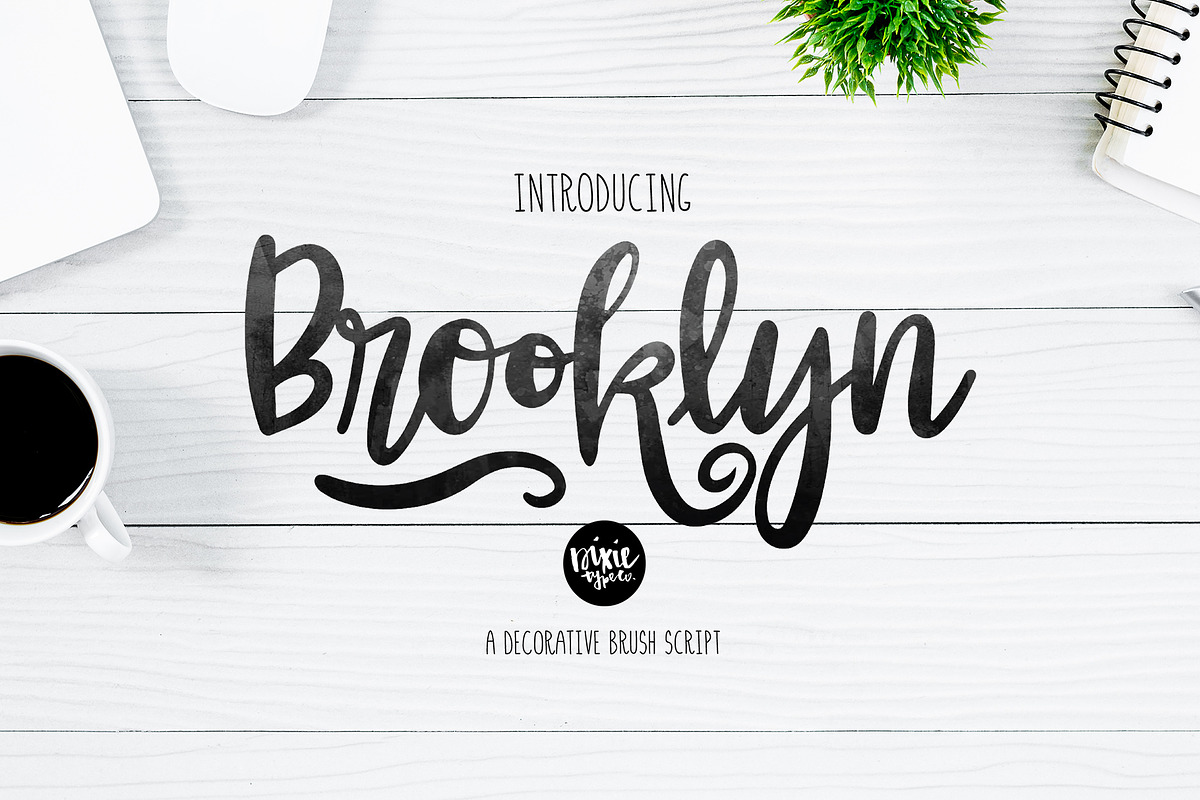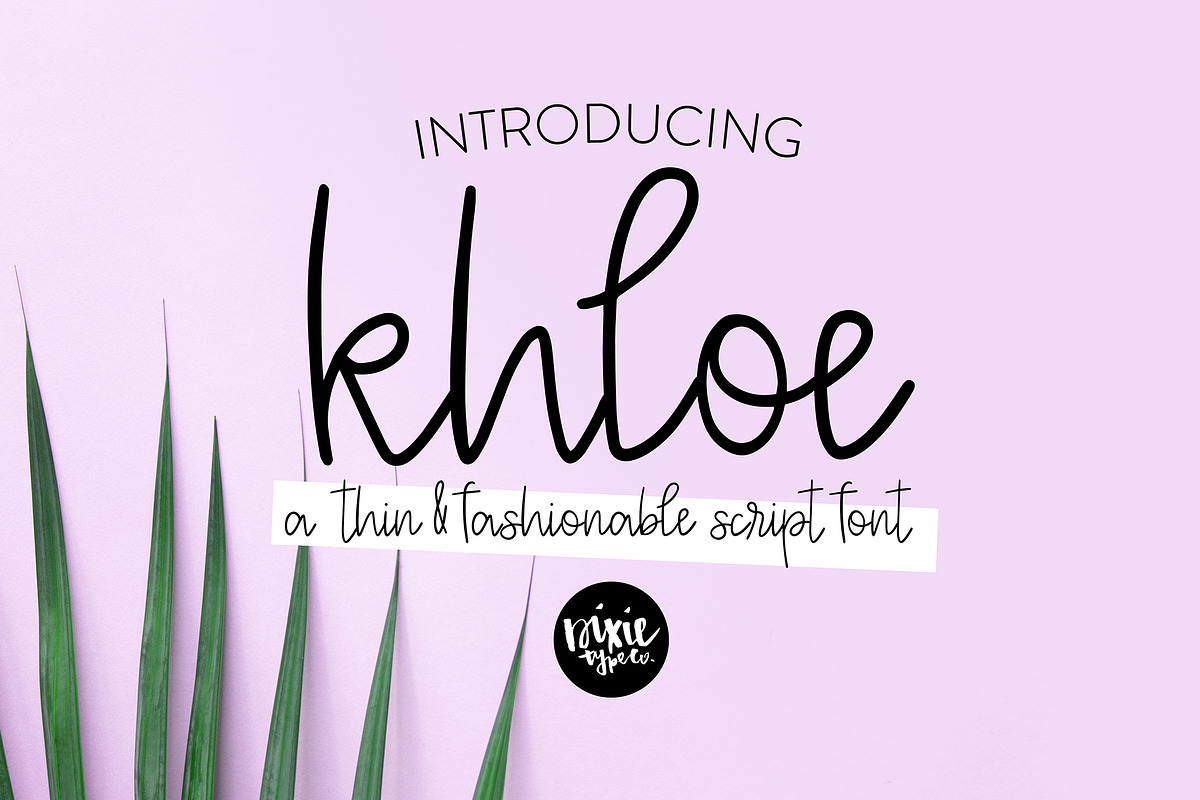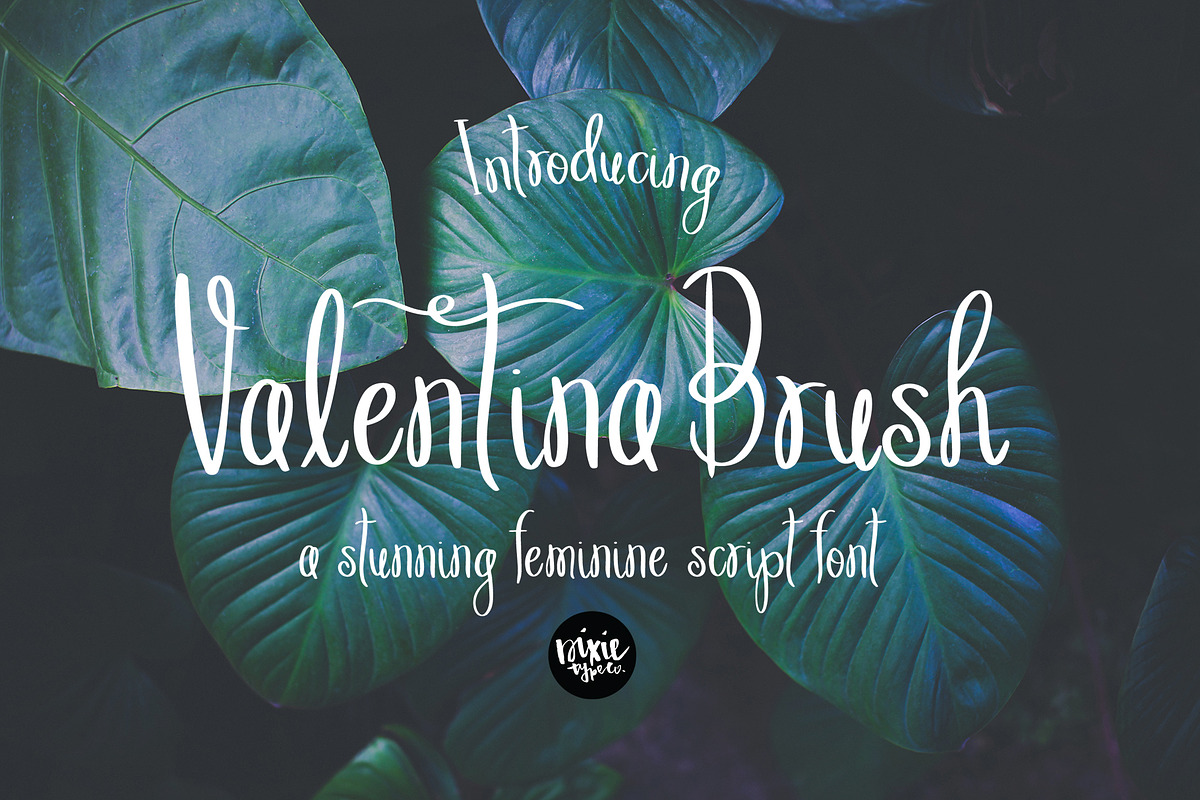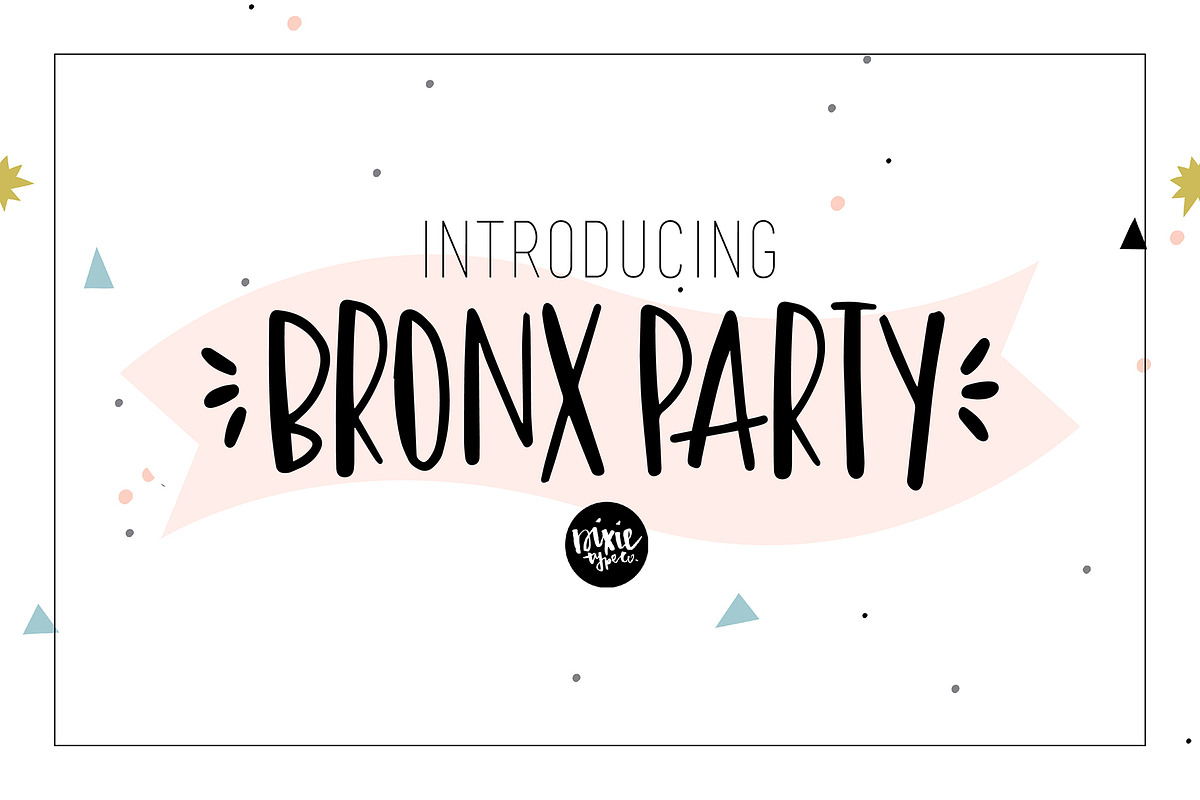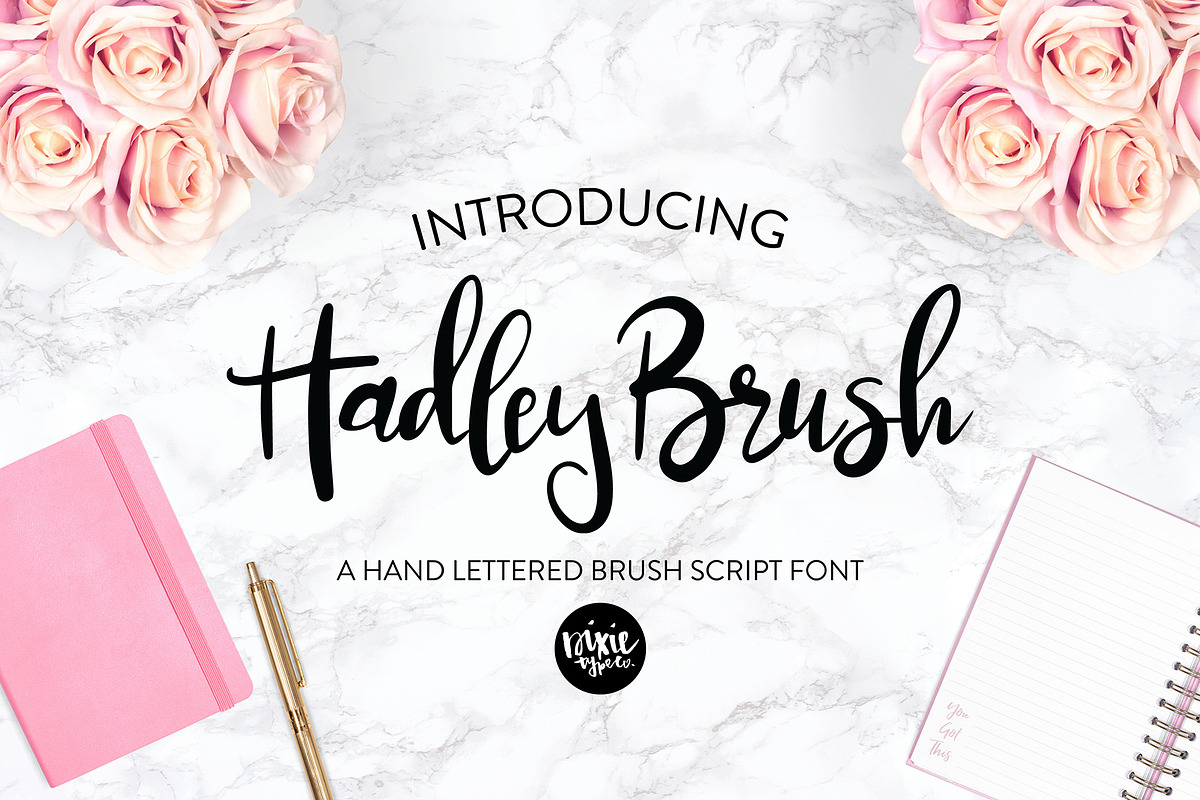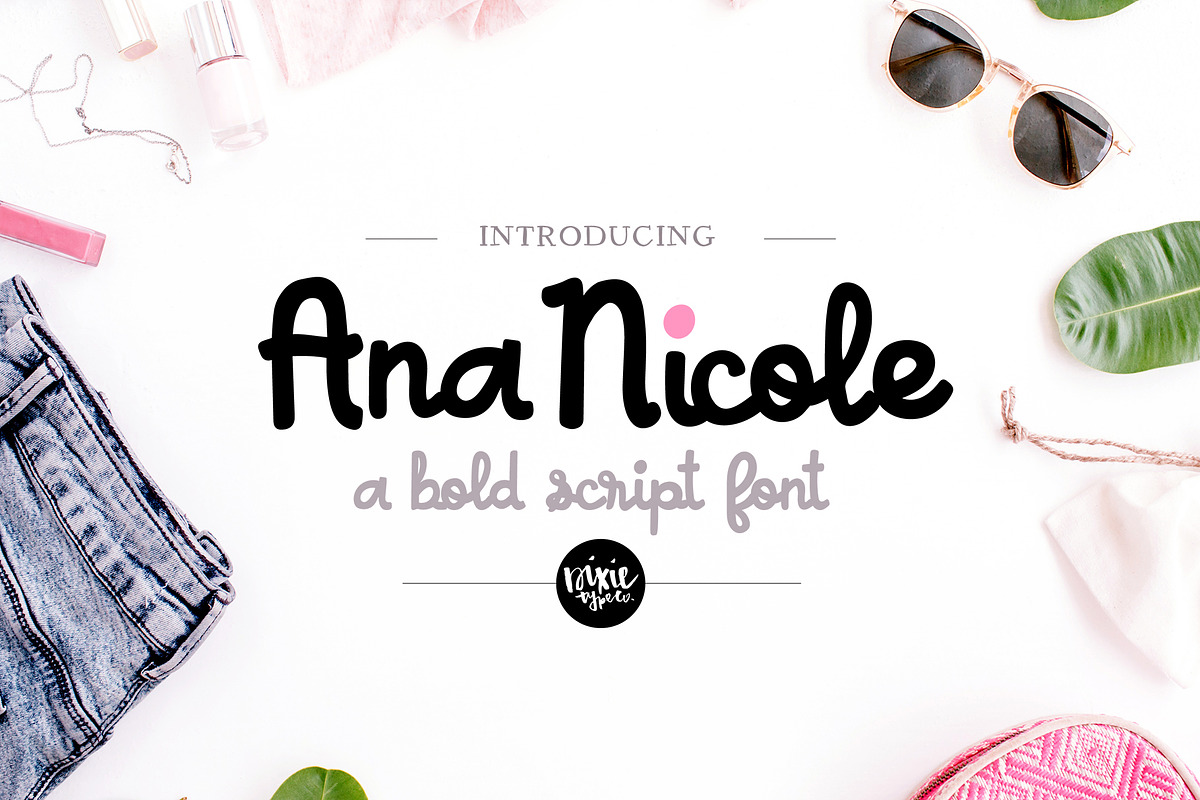
These fonts were all hand lettered with a brush and ink, or iPad Pro.
The 8 fonts included are:
Ana Nicole Viviene Bold Brush (New!) Brooklyn Hadley Brush Bronx Party Valentina Brush Khloe Laguna Beach